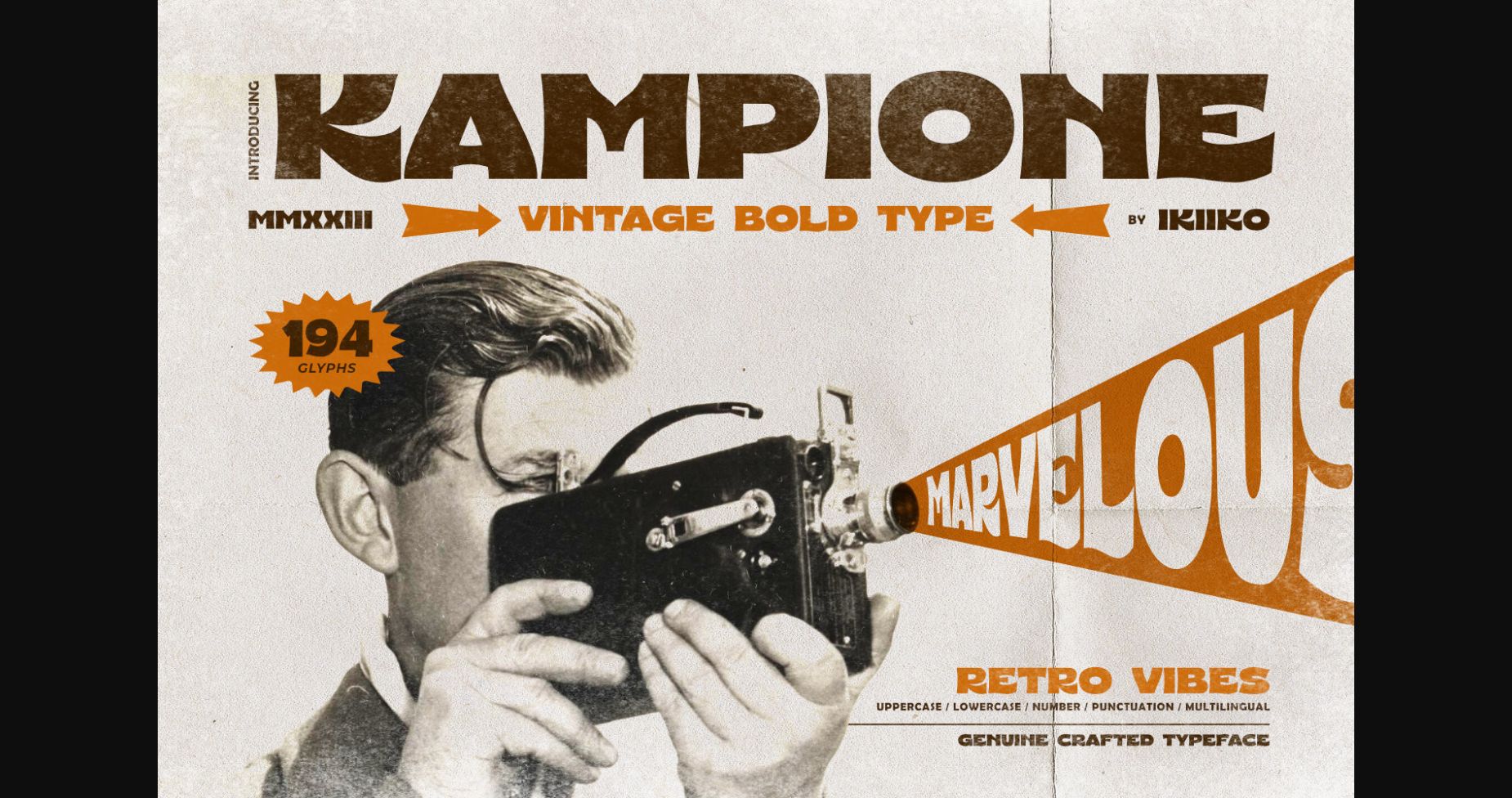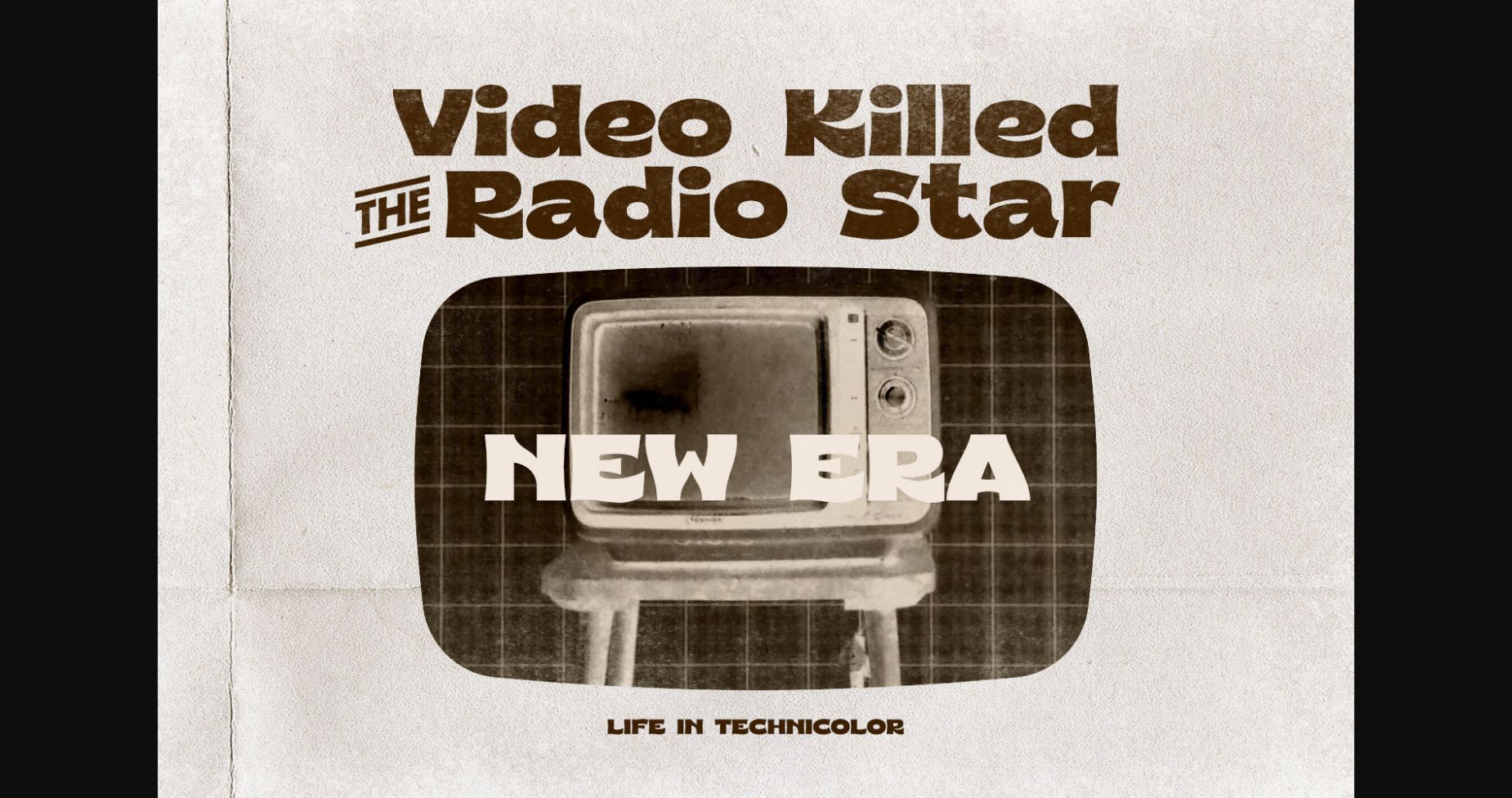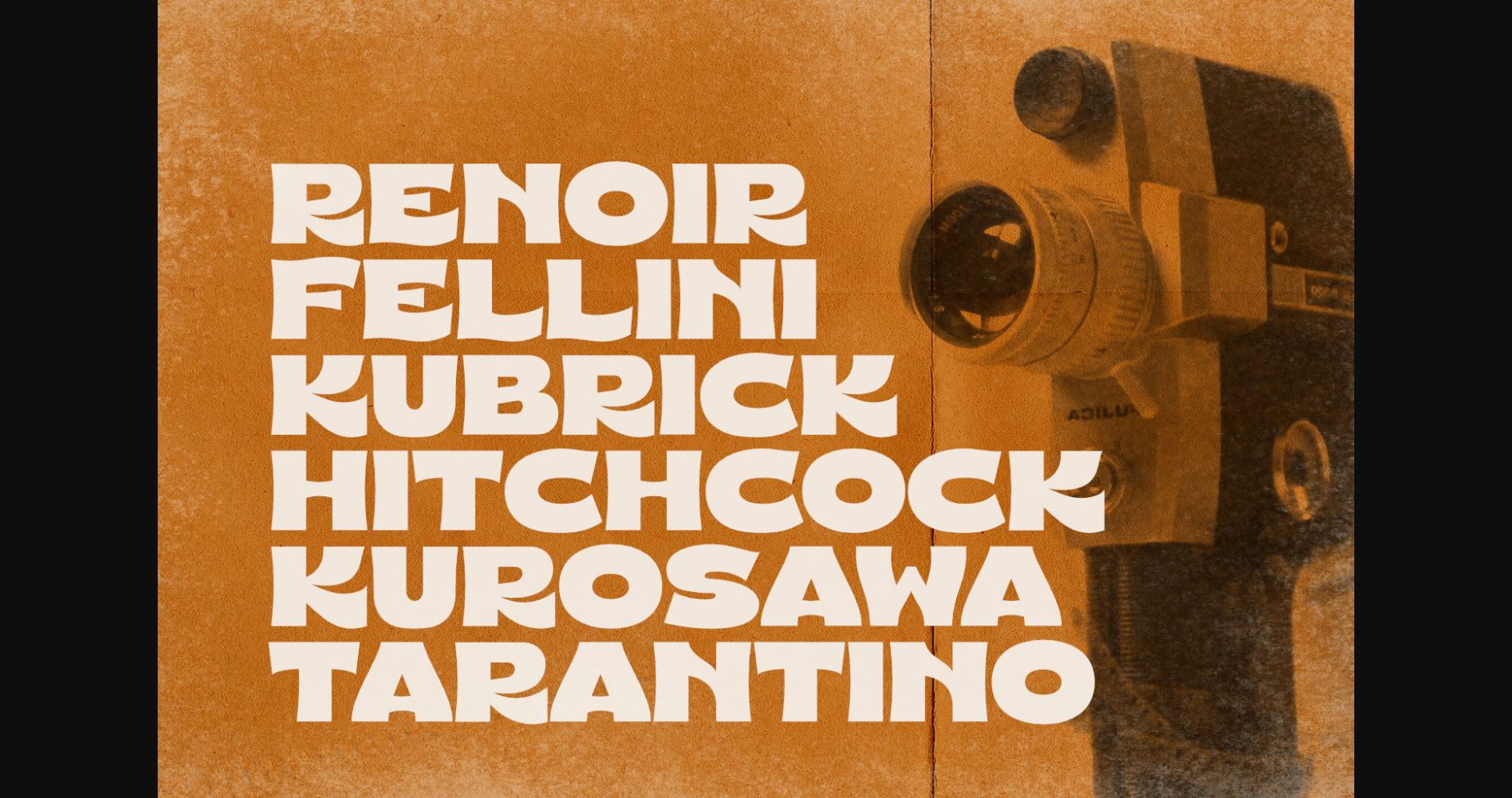
About Kampione Font
Kampione is a typeface that was inspired by classic movies and frequently makes people nostalgic for the height of cinema. This typeface is distinguished by its strong, dramatic letterforms, which frequently evoke the early 20th-century Art Deco and Art Nouveau movements. Images that enhance boldness and drama, including black-and-white photos, antique movie posters, or pictures of film reels, are frequently used in conjunction with this font.
Bold, geometric letterforms that are frequently rounded or squared off at the corners define this style. The font’s overall appearance frequently has a significant visual impact and is reminiscent of an old advertisement or poster.
This typeface is perfect for a vintage poster, movie title, elegant logo, packaging, magazine design, fashion brand, classic stuff, quotes, or simply as a stylish text overlay to any background image.
Bold, geometric letterforms that are frequently rounded or squared off at the corners define this style. The font’s overall appearance frequently has a significant visual impact and is reminiscent of an old advertisement or poster.
This typeface is perfect for a vintage poster, movie title, elegant logo, packaging, magazine design, fashion brand, classic stuff, quotes, or simply as a stylish text overlay to any background image.